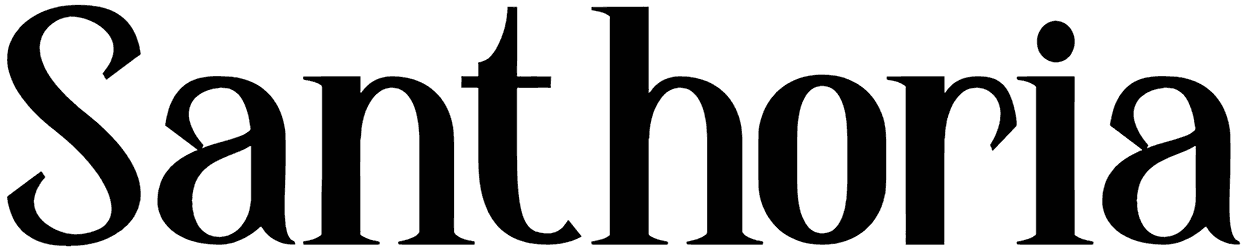
Santhoria Font
The Santhoria font has two different styles that you can add to your font collection: a regular, bold, and an italic one. This book font gives a formal, modern, and sophisticated feeling to the reader, and when the words are put together, they give influential effects to your words. You can use it for fashion blogs, summer party flyers, retro movie posters, product names, and concert promotions.